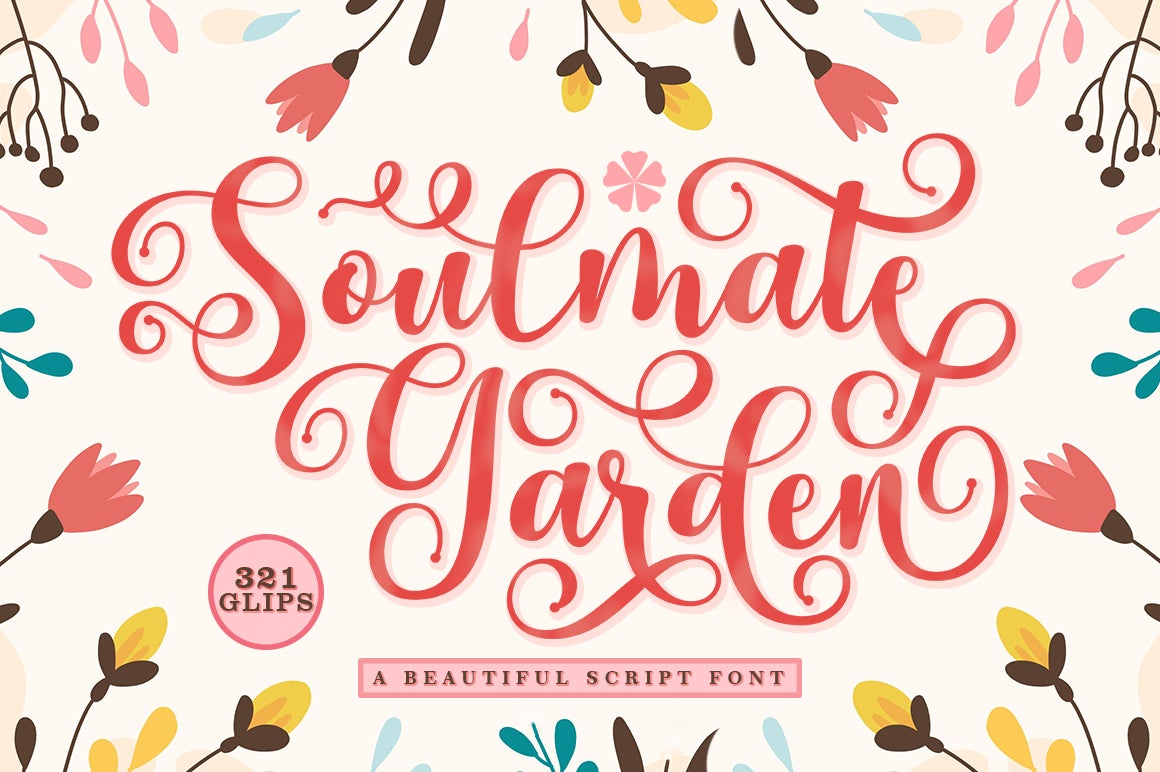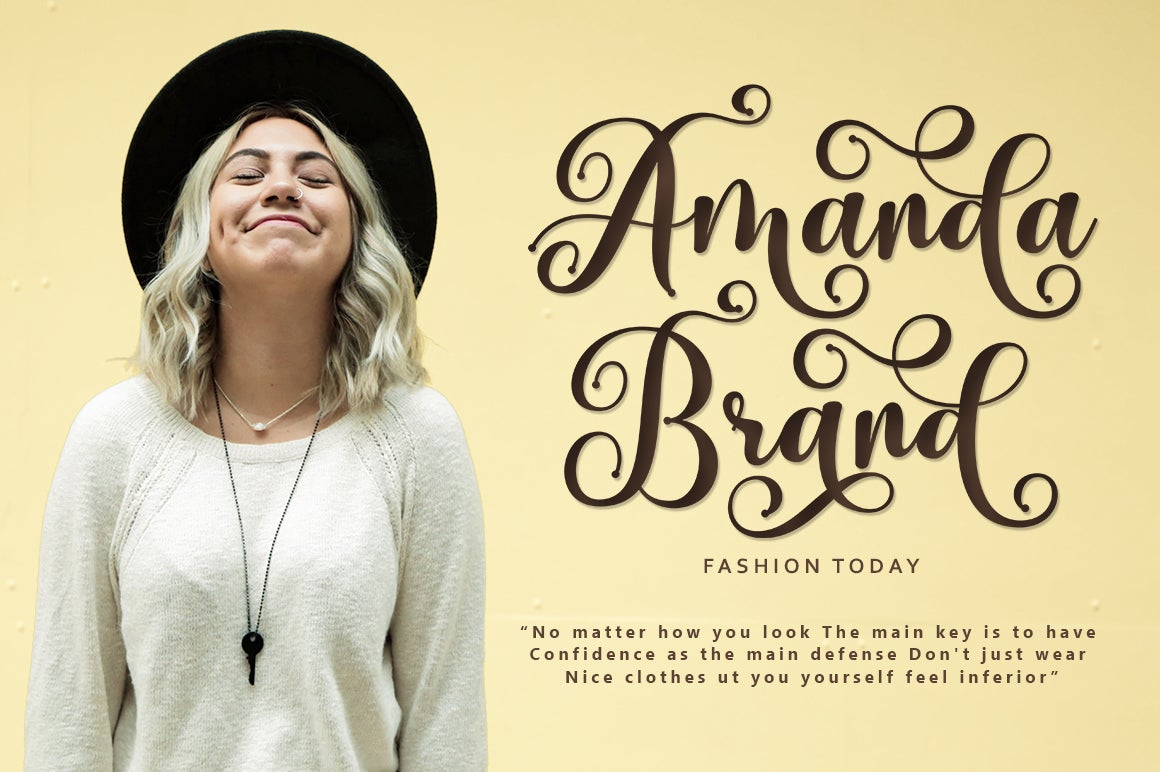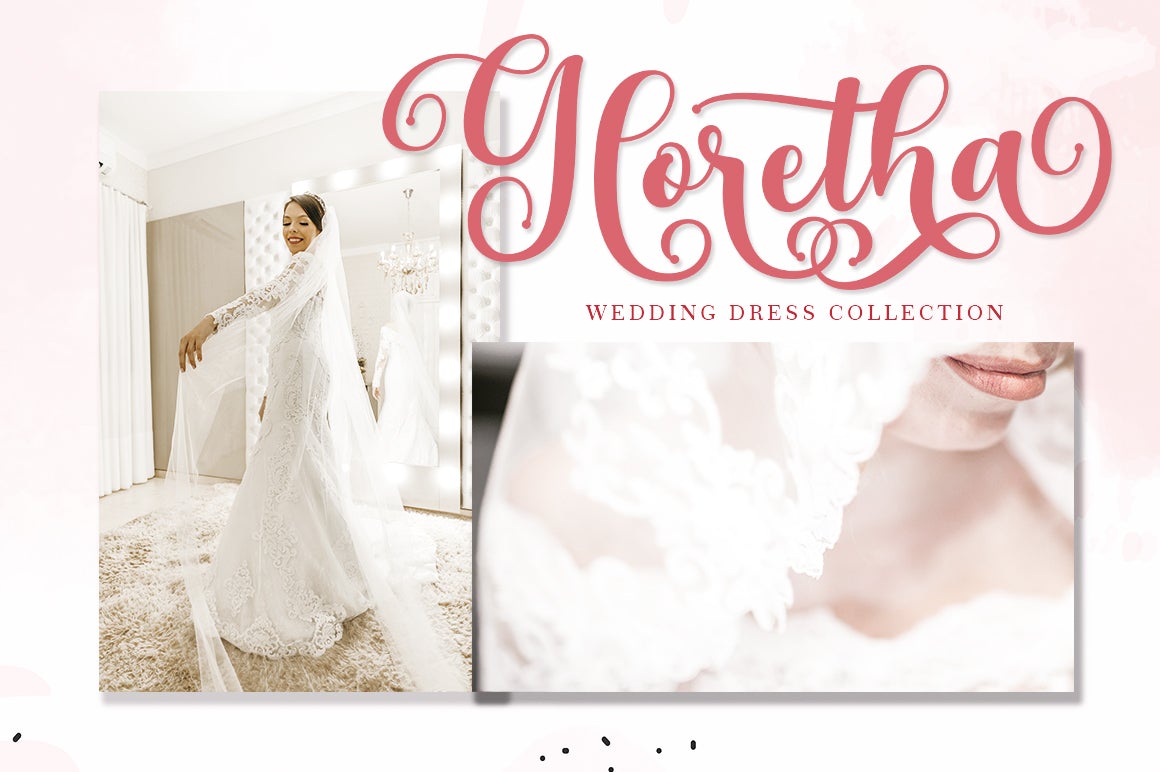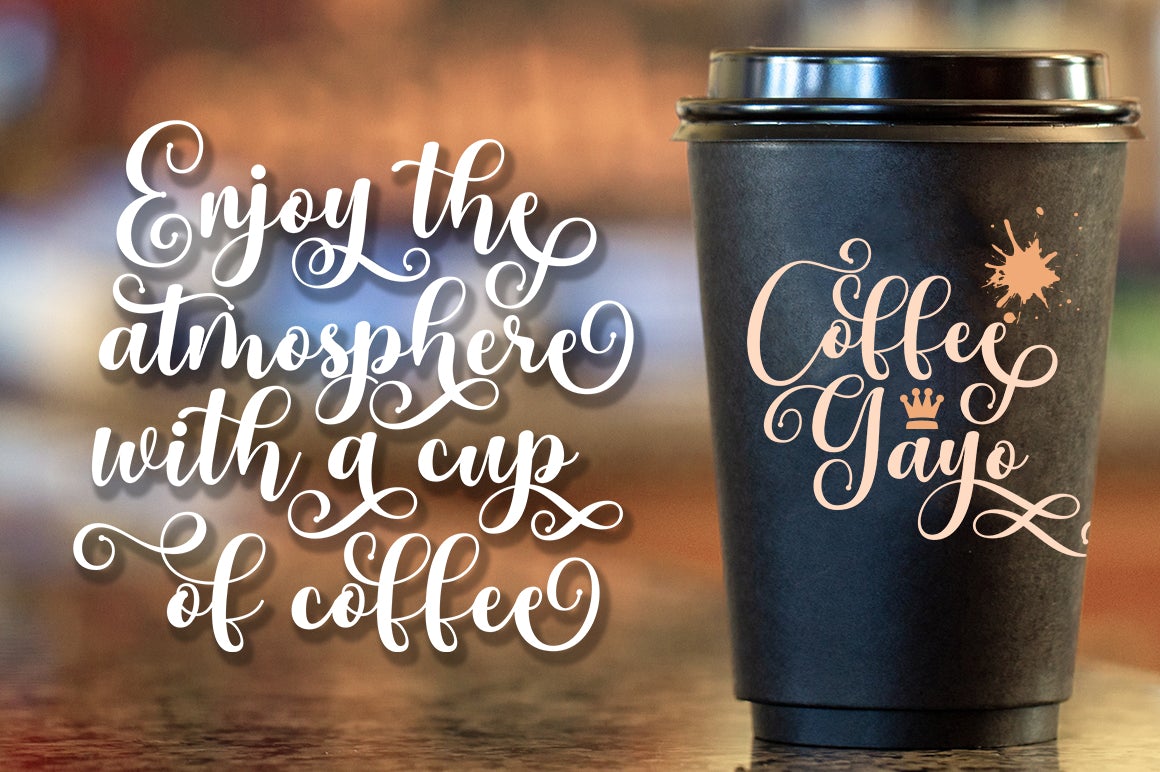
About Soulmate Garden
Soulmate Garden is a beautiful modern calligraphy with many alternative styles, this font looks natural, elegant and perfect for any extraordinary project.Soulmate Garden is suitable for various products such as invitations, product packaging, quotes, product design, crafter, labels, photography, watermarks, logos & branding and very suitable for design Valentine day, mother day, wedding, spring, christmas, etc.Everything Stylistic Altternate can be accessed using software that supports Opentype, such as Adobe Indesign, Adobe CS Illustrator, Adobe Photoshop CC, and Corel Draw or or I have provided OTF & TTF for swash and stylistic alternates. You will get: Soulmate Garden OTF Soulmate Garden TTF Thank you